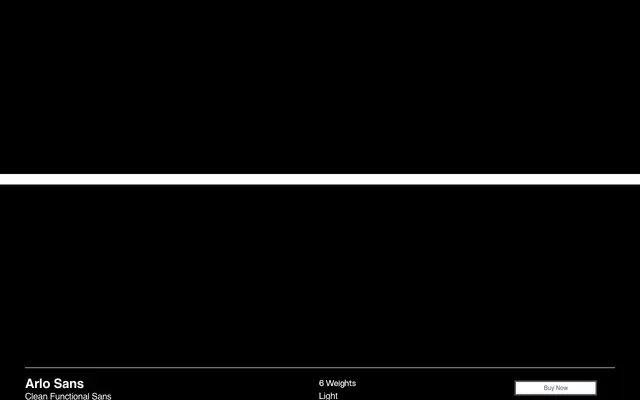
Arlo Sans
A neutral, open-formed grotesque in five weights, built for editorial systems, interface design and corporate communication.
Arlo Sans prioritises legibility and calm reading rhythm through smooth curves, stable proportions and generous spacing. The family avoids strong personality in favour of consistency across headlines, body text and interface typography, making it a practical choice for brand systems that demand restraint. With coverage across 210 Latin languages and 470 glyphs, it is a workmanlike option for multilingual projects.
Described as a clean, neutral sans-serif with open forms and restrained detailing, positioning it firmly in the grotesque tradition rather than geometric or humanist camps.